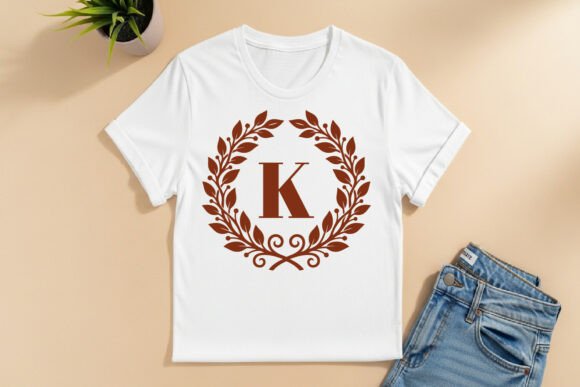
Introduction to Laurel Crest Font Font
Fonts play a crucial role in design, and the Laurel Crest Font font is a typeface that brings both character and versatility to any project. Whether you’re working on a branding project, a website, or a print design, the Laurel Crest Font font offers a unique style that can elevate your work.
Laurel Crest Monogram Font is a sophisticated decorative typeface inspired by timeless laurel wreaths and elegant crest emblems.
Each letter is beautifully surrounded by detailed botanical wreath elements, creating a luxurious and refined monogram style perfect for premium creative projects This font is ideal for wedding invitations, custom monograms, boutique branding, logo designs, Cricut and Silhouette crafts, social media graphics, stationery, certificates, home decor, and personalized gifts.
Key Features of Laurel Crest Font Font
Why Choose Laurel Crest Font Font?
The Laurel Crest Font font is more than just a typeface – it’s a design tool that helps you communicate your message with style and clarity. Its unique character set and versatile design make it suitable for a wide range of applications, from elegant invitations to bold headlines.
With its carefully crafted letterforms and balanced proportions, the Laurel Crest Font font ensures readability and visual appeal across all mediums.
What makes Laurel Crest Font font special?
The Laurel Crest Font font stands out with its unique design, exceptional readability, and versatility across various design applications.